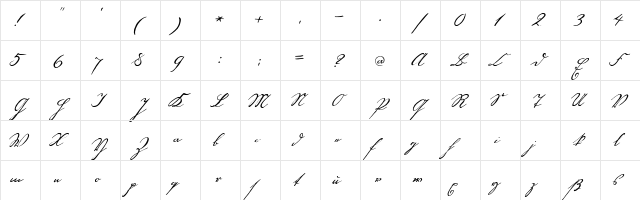
Handwriting1800 normal
| Designer | Marc 'Jantiff' Hermann |
Design Context for Handwriting1800 Typeface
Handwriting1800 brings a calligraphic fluidity to the page — its connecting strokes and expressive curves give it an unmistakably human quality.
Font Pairing: Combine Handwriting1800 with a simple geometric sans for maximum contrast — the tension between flowing curves and clean structure is a classic typographic pairing.
Pro Tip: Pair Handwriting1800 with a clean sans-serif for supporting text. The contrast between fluid script and geometric structure creates an elegant typographic hierarchy.